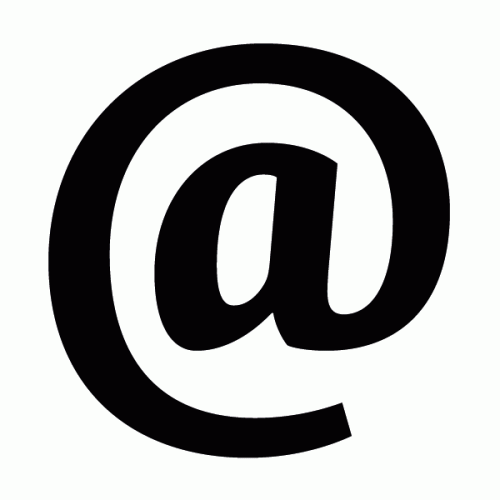
The at sign was originally an accounting and commercial invoice abbreviation meaning “at a rate of”. Today it is also used in email address and on social media platforms.
Dutch: at, apenstaartje
French: arobase
German: At-Zeichen
Italian: chiocciola (informal)
Polish: małpa
Portuguese: arroba
Russian: коммерческое эт, «собачка»
Spanish: arroba
Ukrainian: комерційне ет, «равлик», «песик», «вухо»